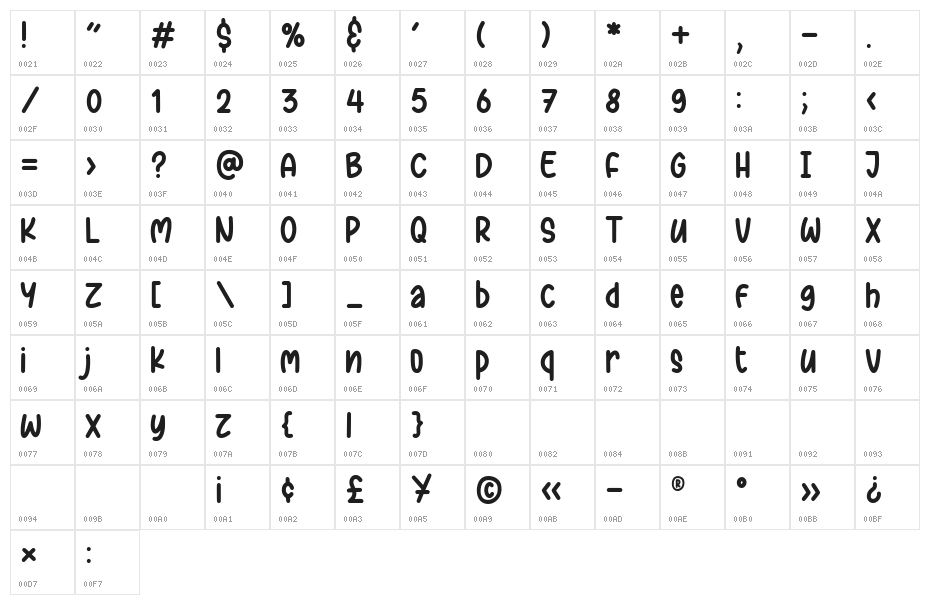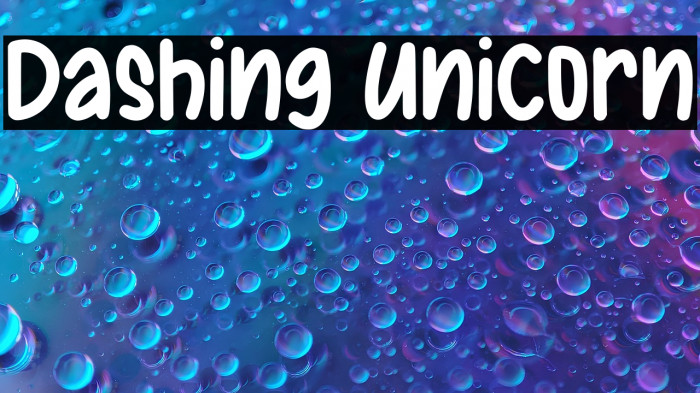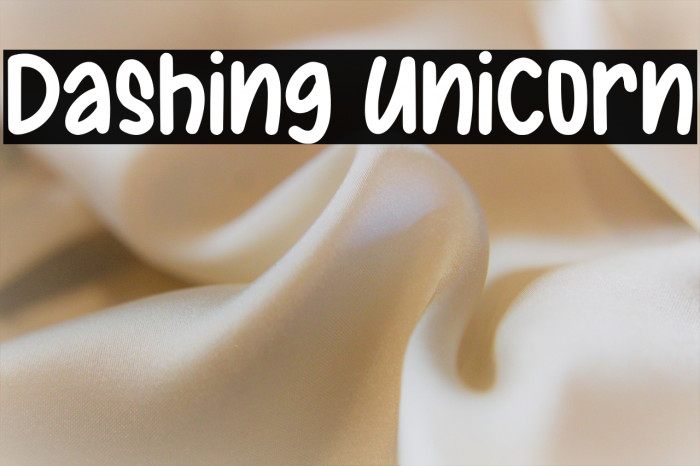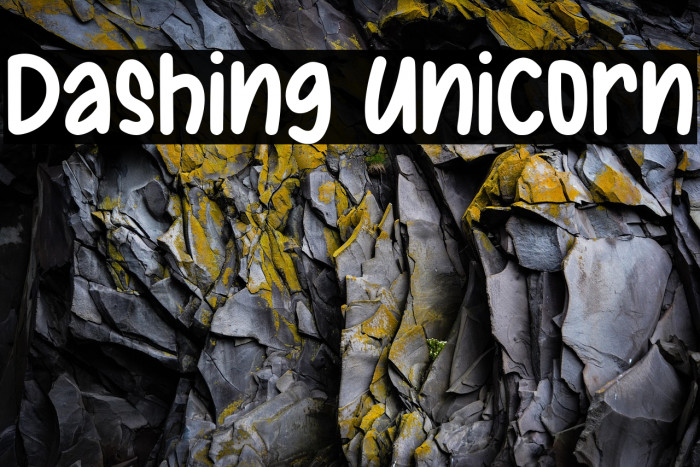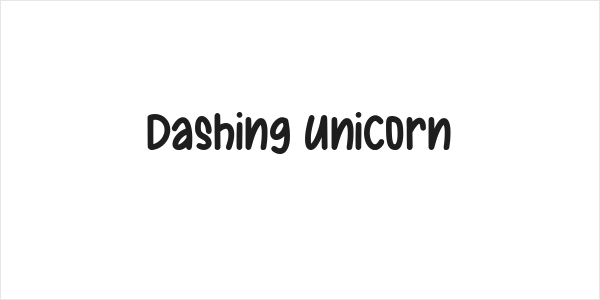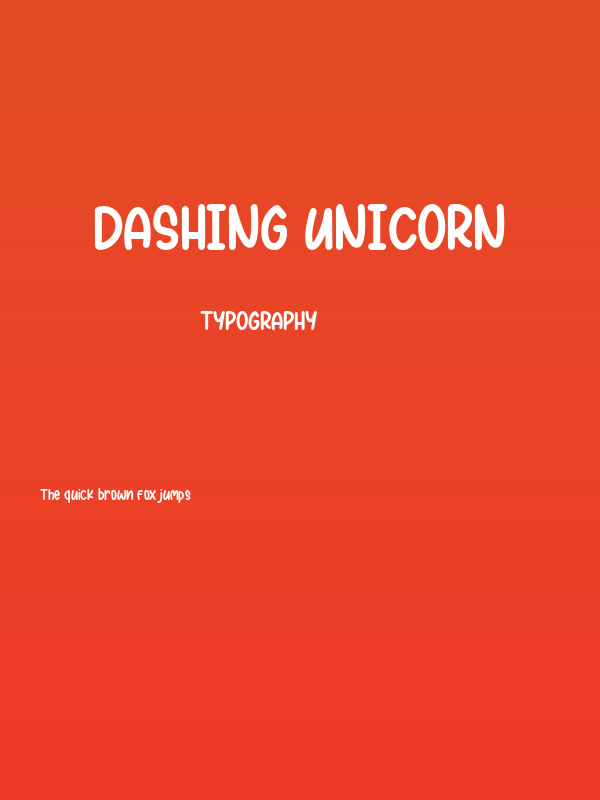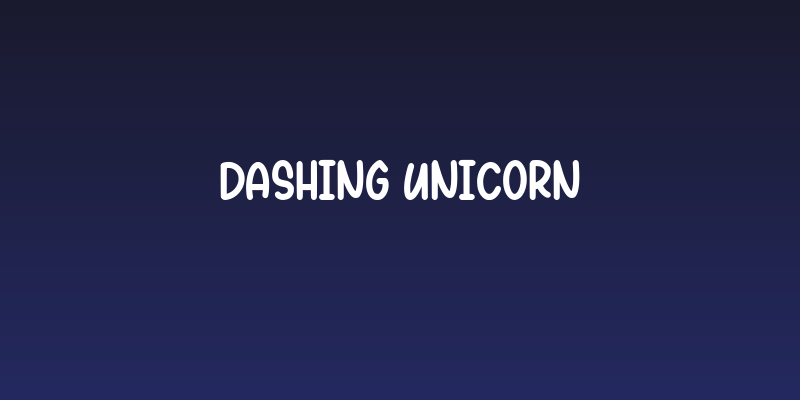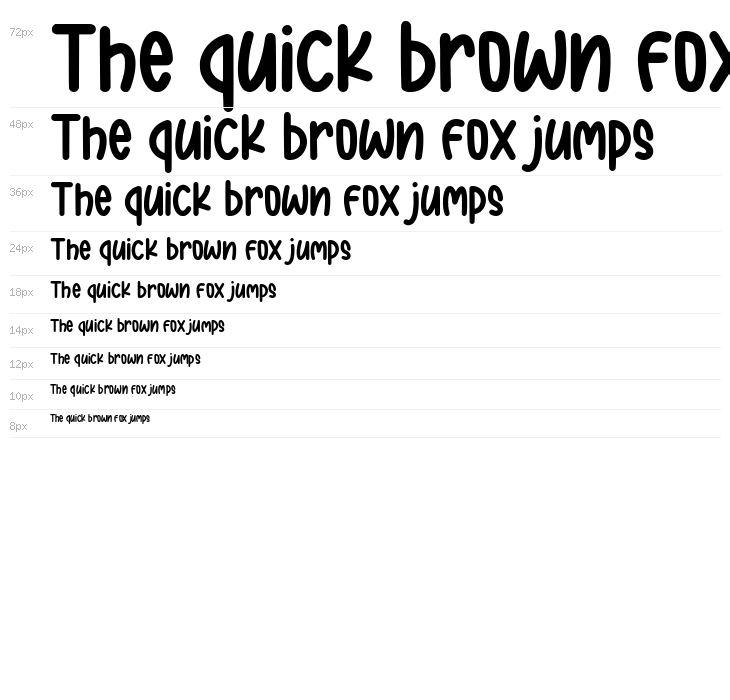
Dashing Unicorn Font
Dashing Unicorn Description
This playful and whimsical font features rounded, bold characters with a hand-drawn aesthetic. The letters have a consistent stroke width, giving them a smooth and friendly appearance. The uppercase and lowercase letters maintain a uniform style, with slightly exaggerated curves and loops that add to the font's charm. The numerals and special characters are equally expressive, making them suitable for creative and informal designs. The overall look is approachable and fun, making it ideal for projects that require a touch of personality and warmth.
| Proposed Projects | Ideal for children's books, playful branding, greeting cards, and creative social media graphics. |